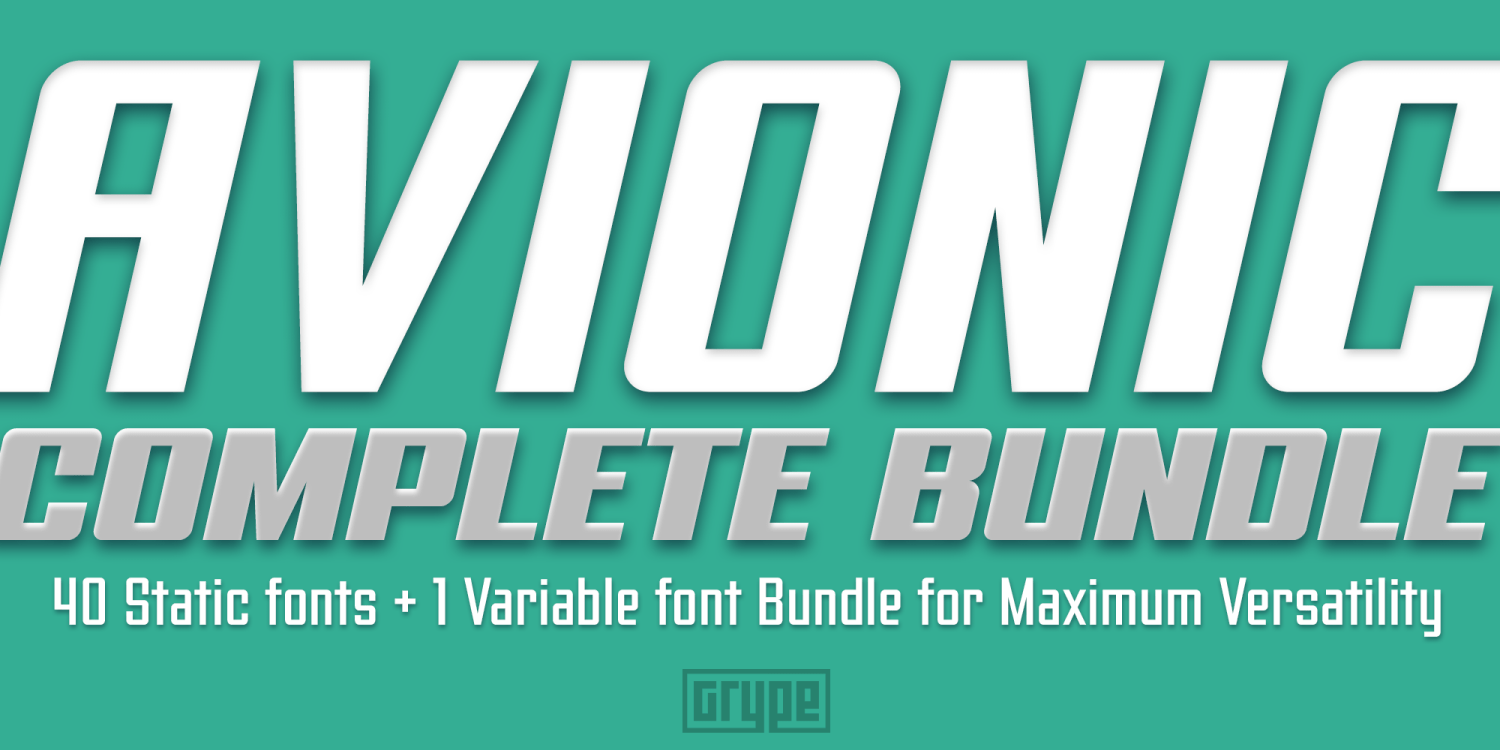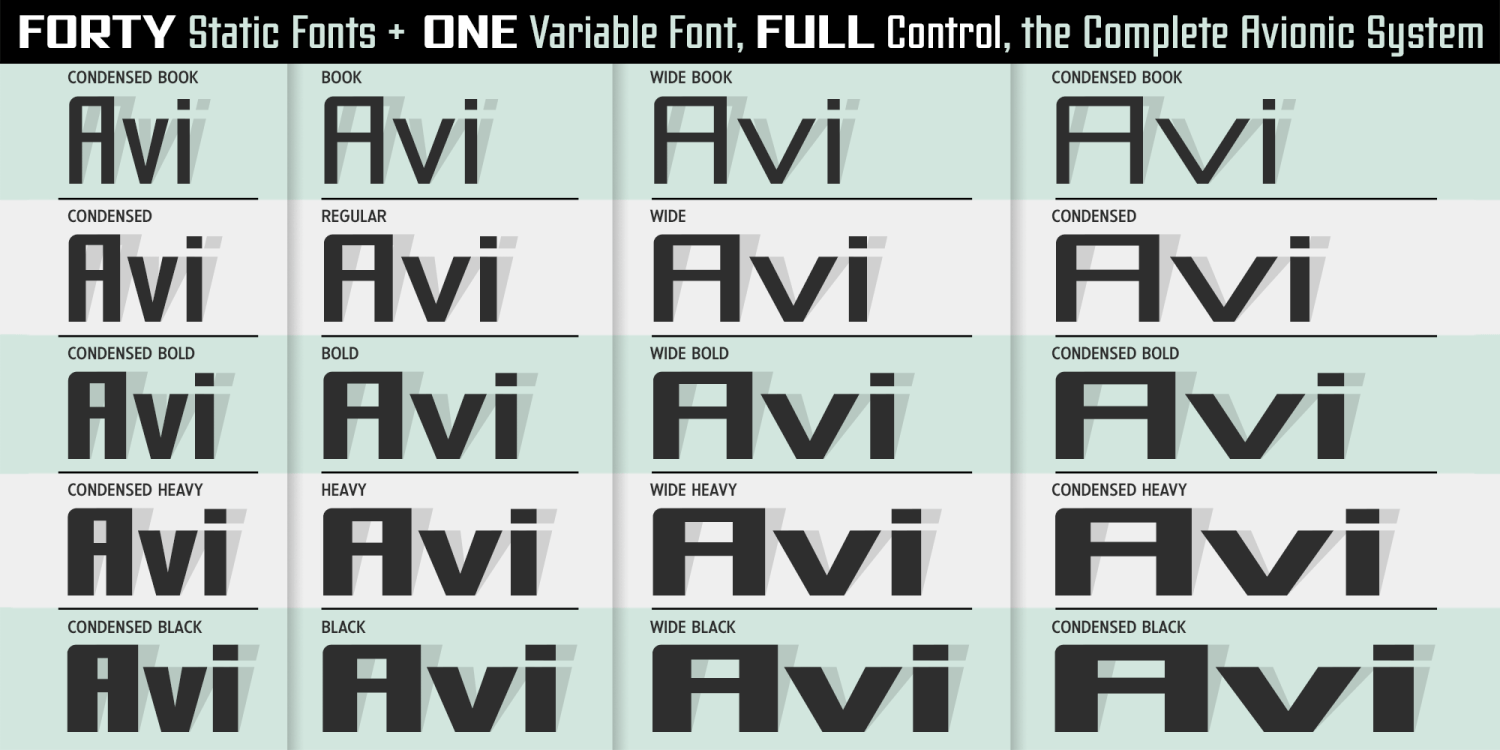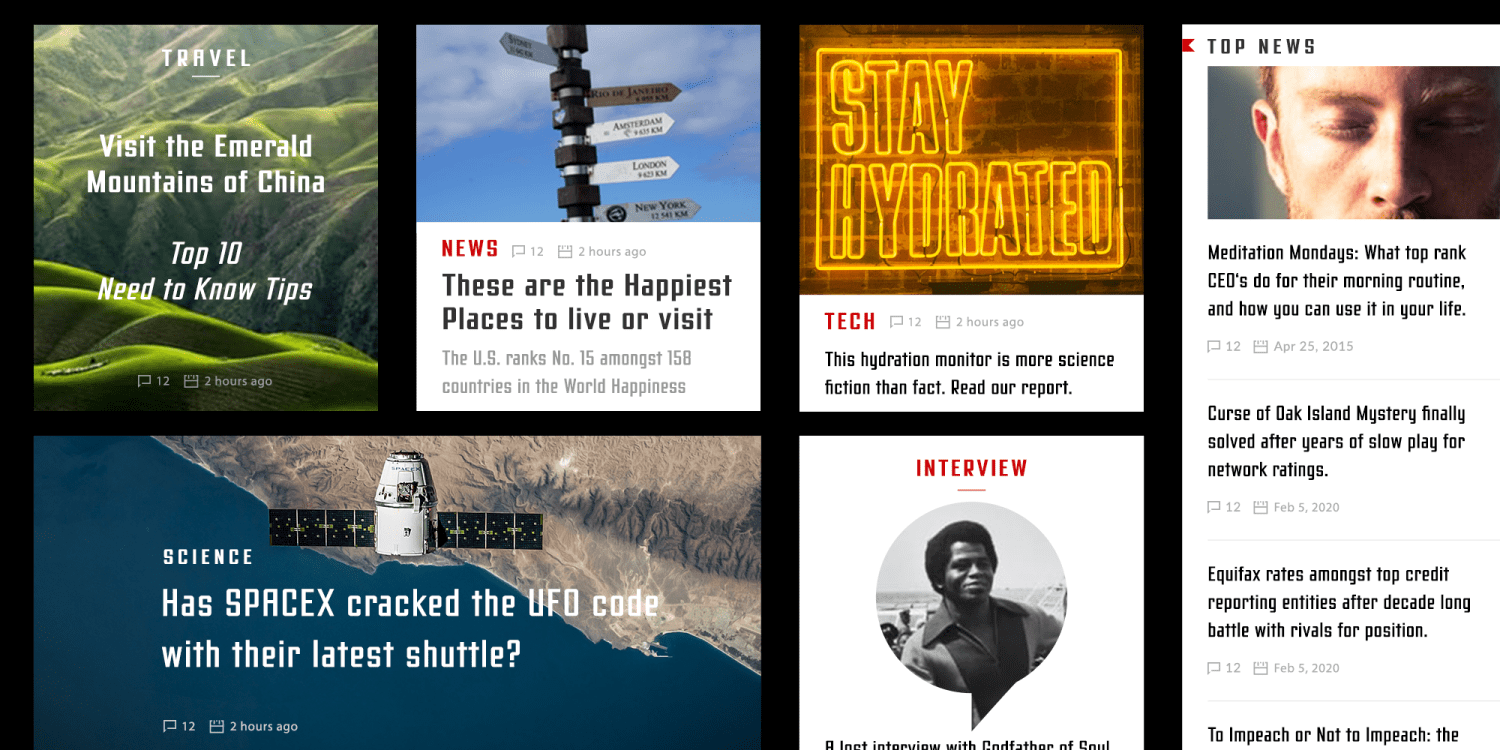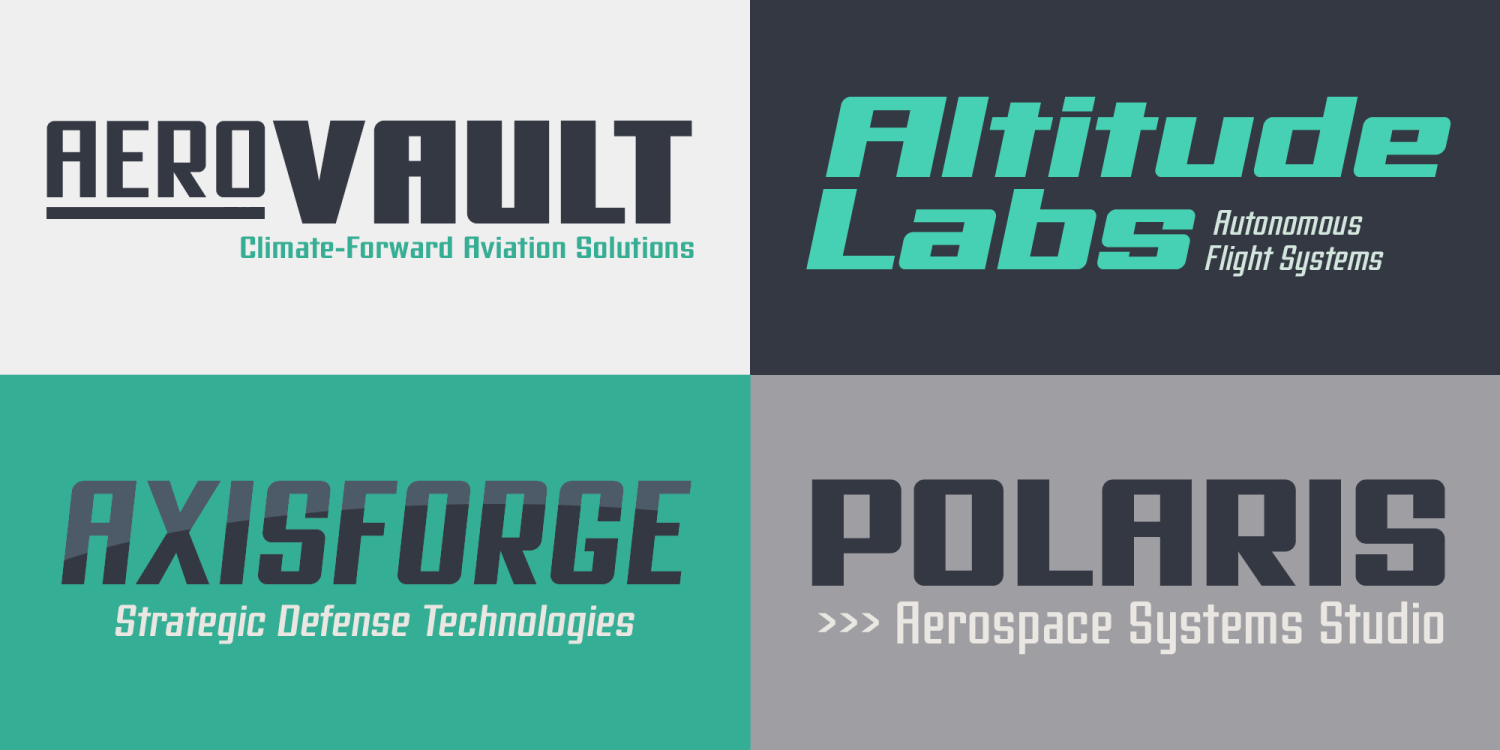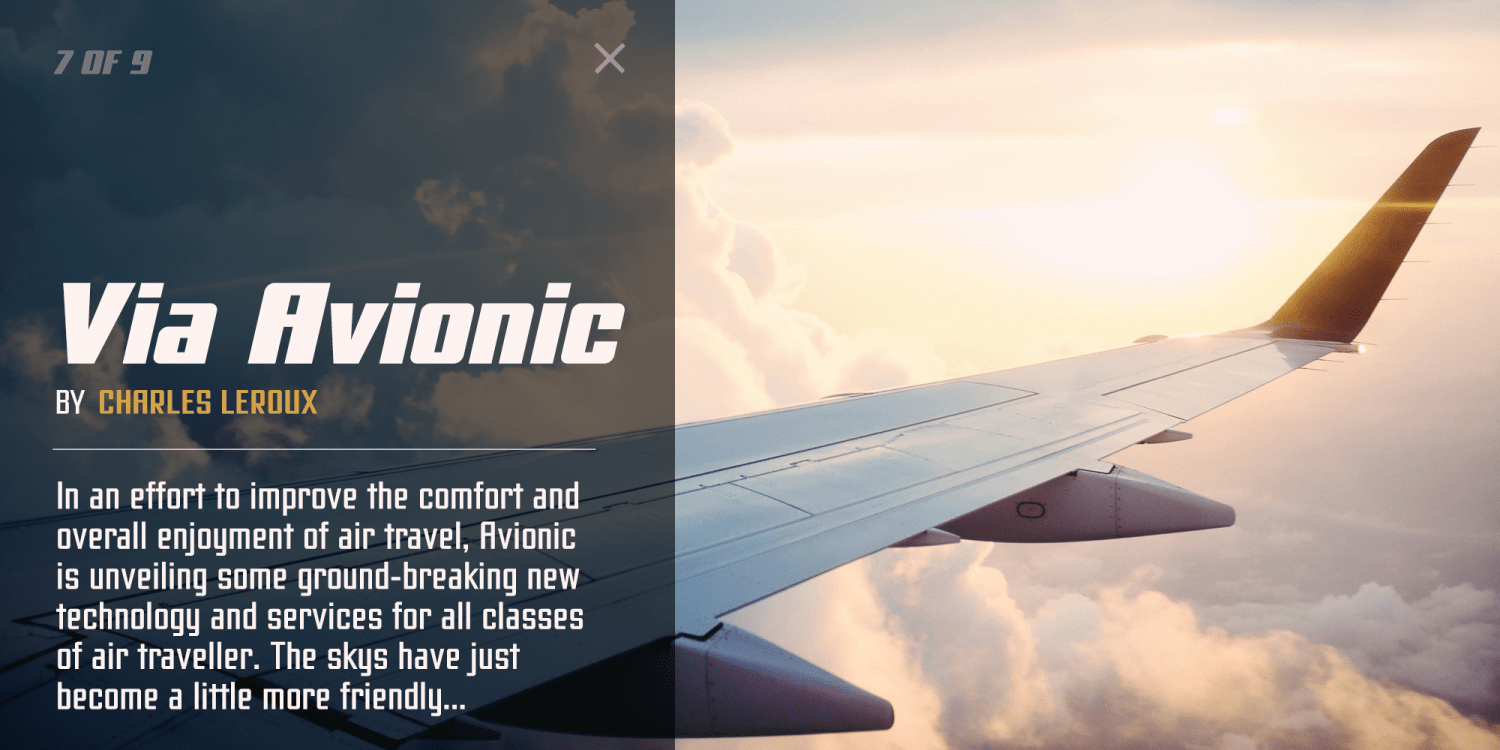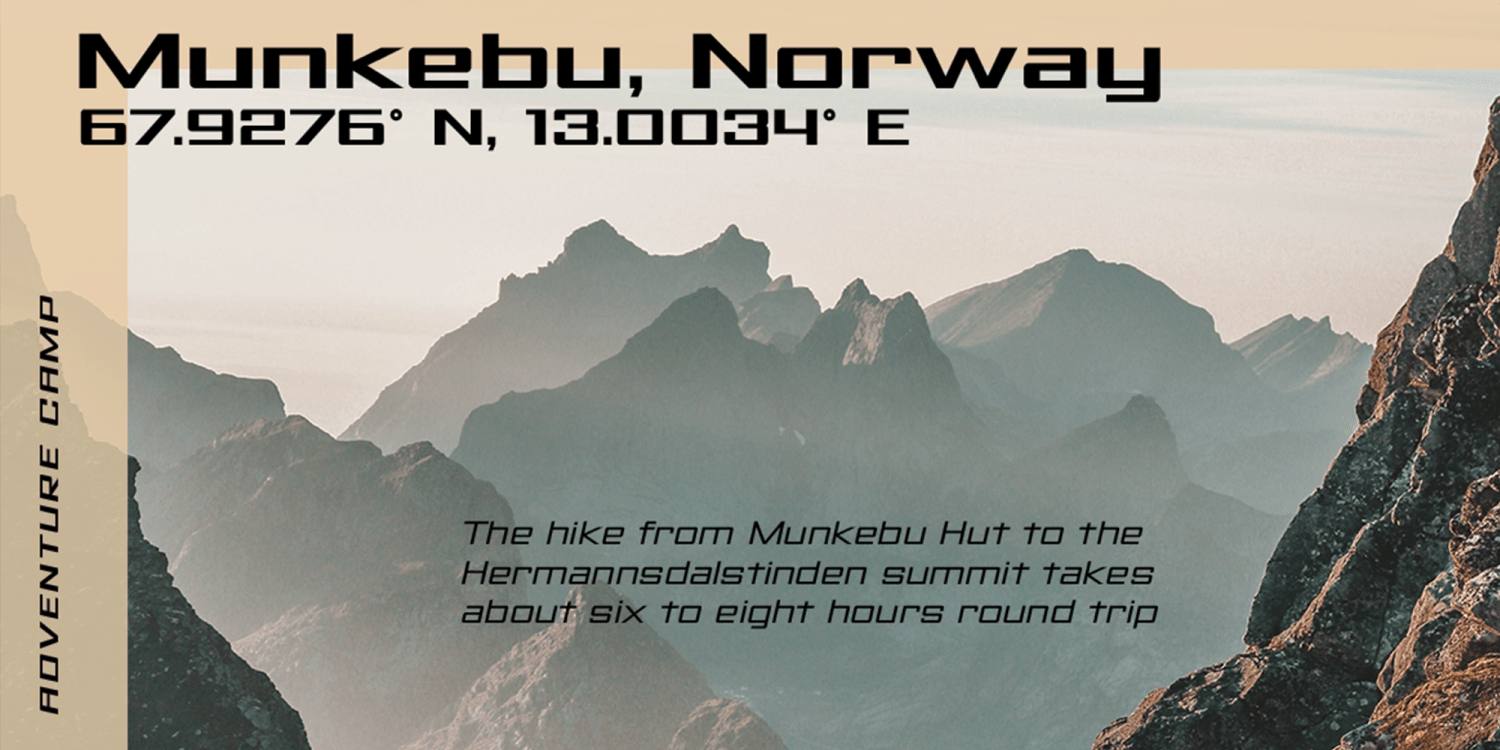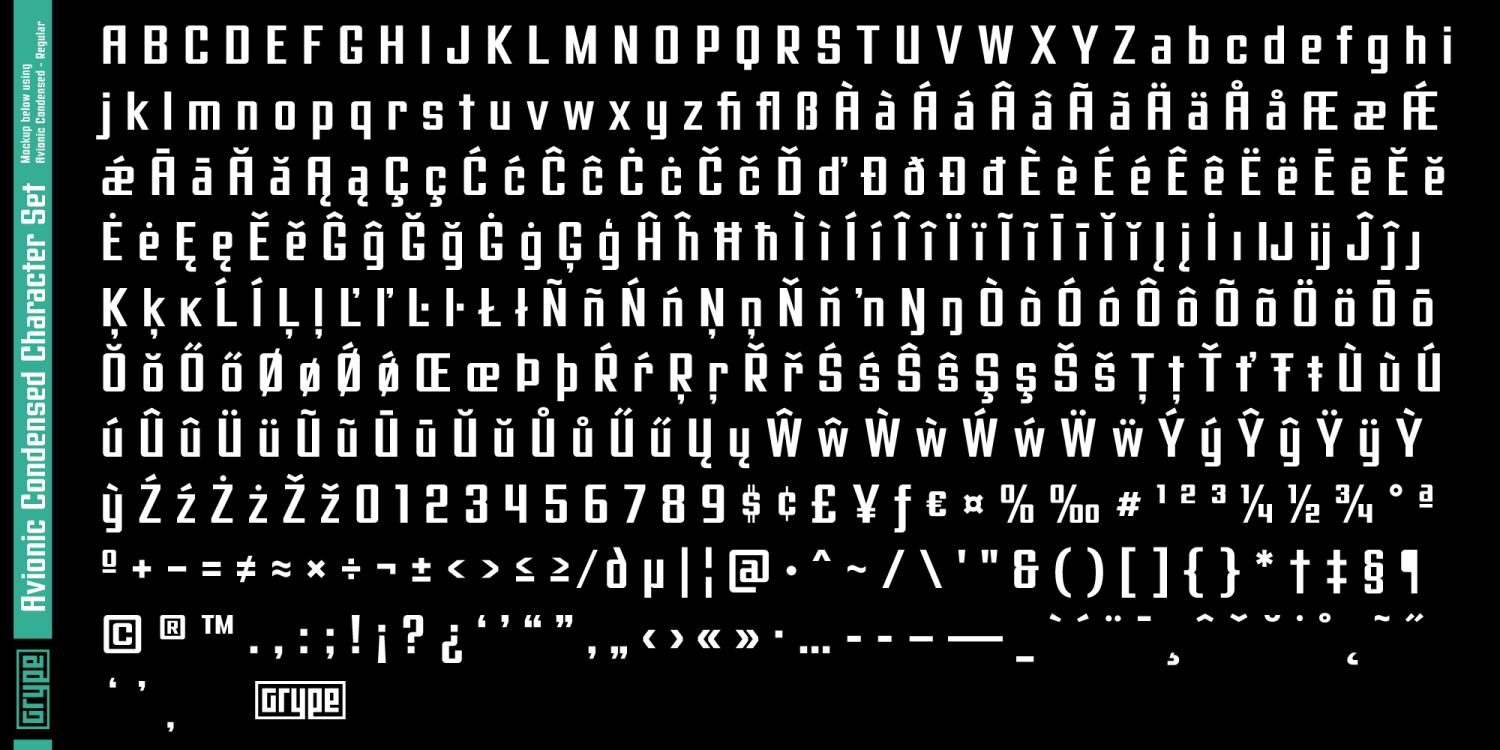
Avionic Complete
Font Bundle by Grype
Avionic Complete pairs the full Avionic static family with the multi-axis Avionic Variable font, offering a comprehensive typographic system for aerospace branding, advanced interfaces, and modern industrial design. This bundle is built for studios and production teams who need both the precision of fixed styles and the flexibility of variable technology across complex, evolving projects.